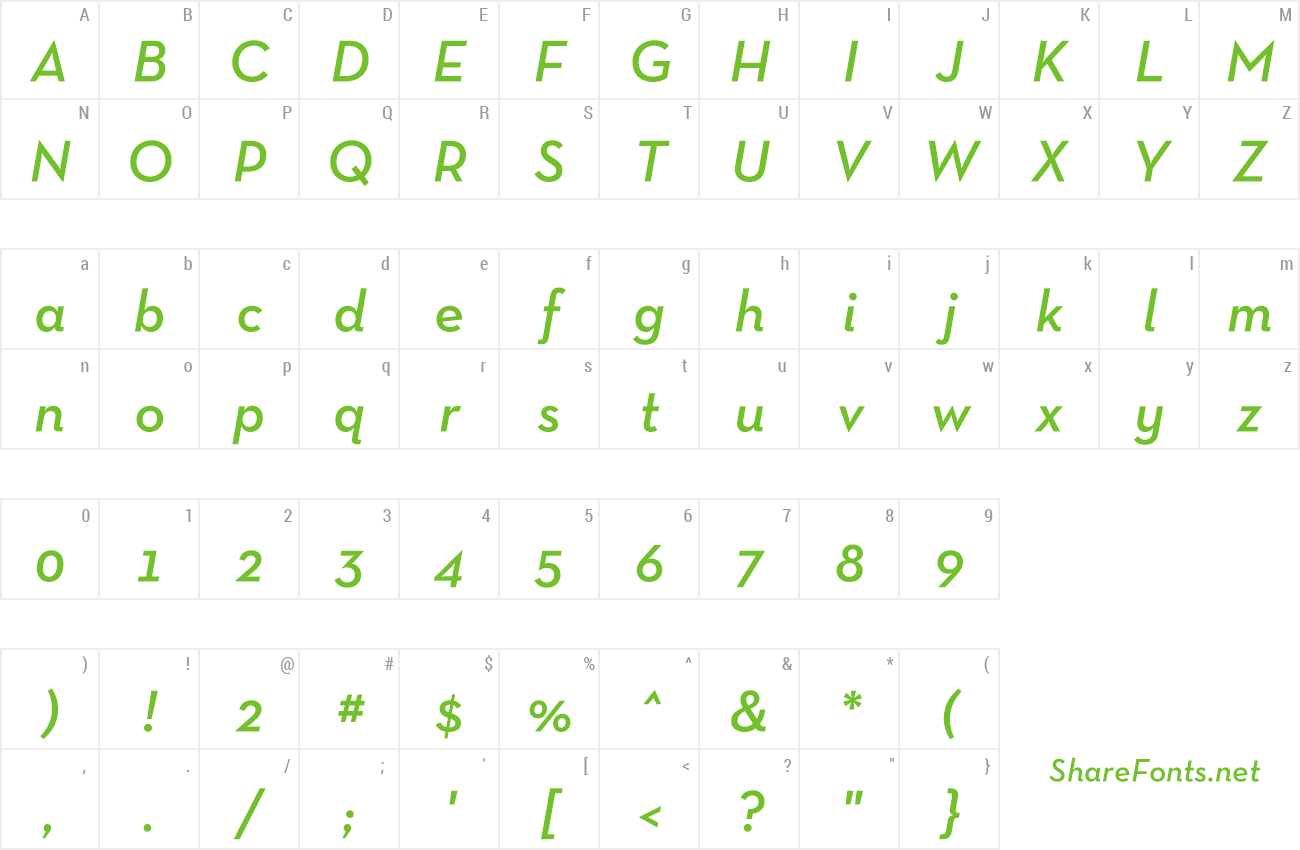
Neutraface demi font free download. View sample text, character map, user rating and review for neutra text tf demi Before installing the neutraface 2 text demi font in os x, you must first completely close all applications. It was inspired by the design principles of architect richard neutra.
Neutraface slab font free download. Although better known for his residential buildings, richard neutra’s commercial projects nevertheless resonate the same holistic ecology—unity with the surrounding. 5129 search results for neutraface text demi.
Download more fonts similar to neutraface 2 text demi typeface in category: It was the outcomes of a mission began by way of schwartz to design “essentially the most typographically entire geometric sans serif loved ones ever”, situated on richard neutra’s concepts of structure and design. Basic, more fonts neutraface 2 text demi font free for maс os:
Part of the neutraface collection from house industries font software license. This geometric sans serif font consists of incredible legible characters displaying awesome readability. Fast food chain wendy’s famously uses neutraface in their advertising material.
A device may be, but is not limited to, a printer, rasterizer, video display terminal, cpu, workstation or any device where the font software is rasterized or display of the house industries font is generated from font software outlines. Neutraface has been an extremely popular typeface in the. It was stimulated by means of the design ideas of architect richard neutra.
It’s used popularly in wendy’s fast food chain. Neutraface slab text tt demi font info. Neutraface text light by house industries from the neutraface collection.